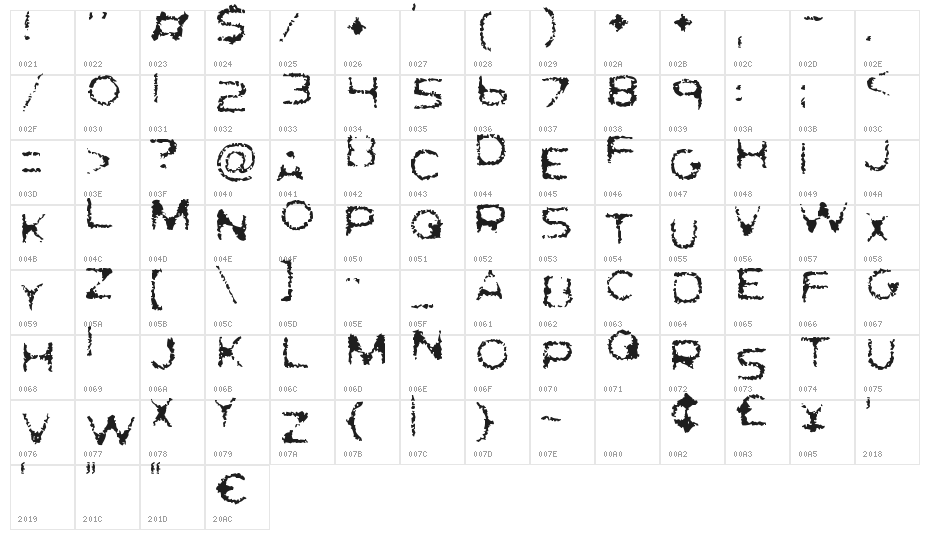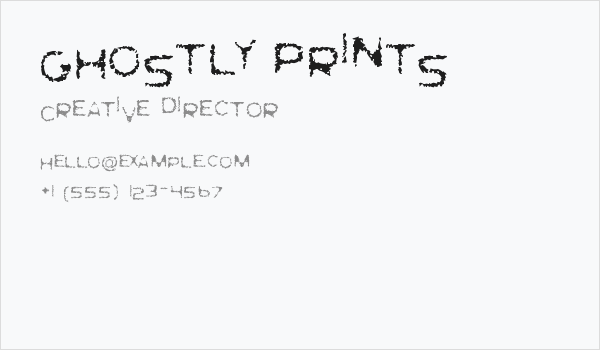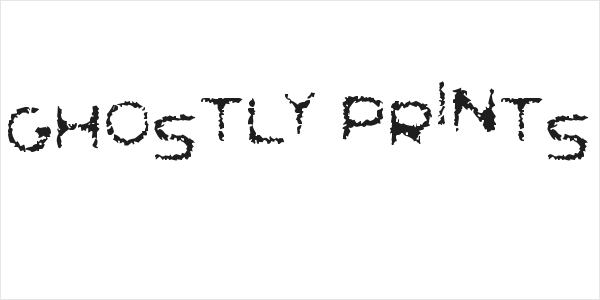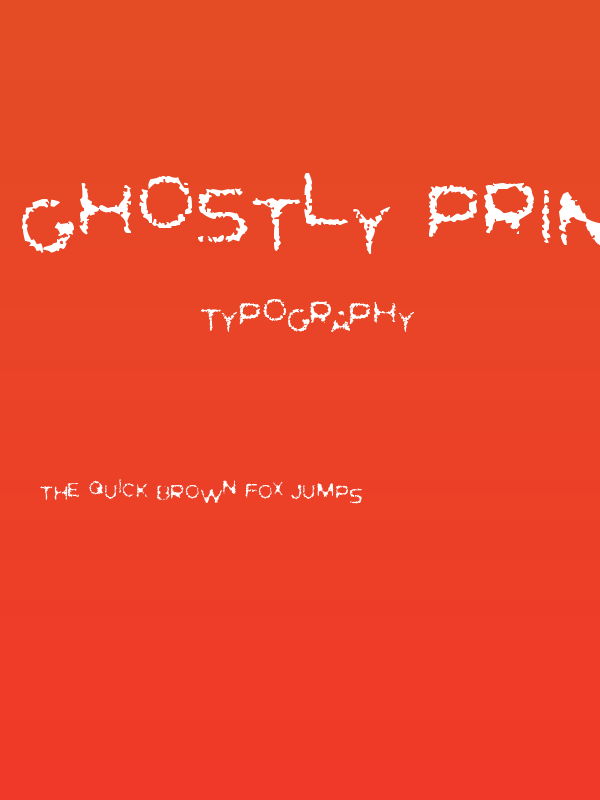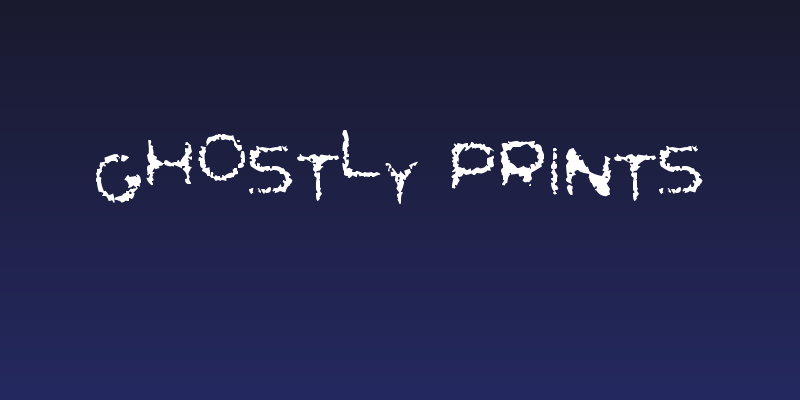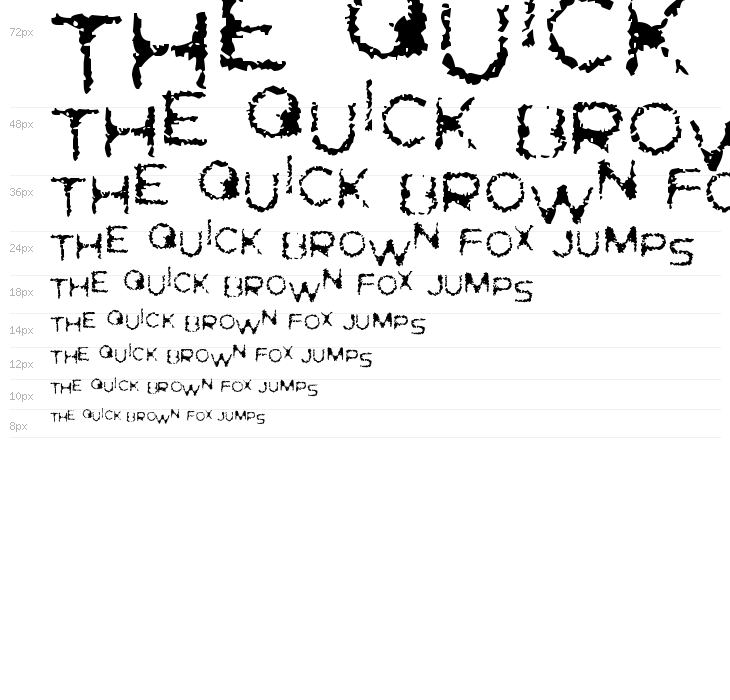
Ghostly Prints Font
Ghostly Prints Description
This font features a unique, distressed appearance, reminiscent of ghostly or decayed textures. Each character appears as if it has been eroded or eaten away, creating an eerie and haunting effect. The edges are irregular and jagged, contributing to its unsettling aesthetic. Despite its rough appearance, the characters remain legible, maintaining a balance between style and readability. This font is particularly suited for themes that require a spooky or mysterious vibe, such as Halloween events, horror movie posters, or themed parties. Its distinctive style makes it a standout choice for projects that aim to capture attention and evoke a sense of the supernatural.
Proposed ProjectsIdeal for Halloween events, horror movie posters, themed parties, and spooky branding.